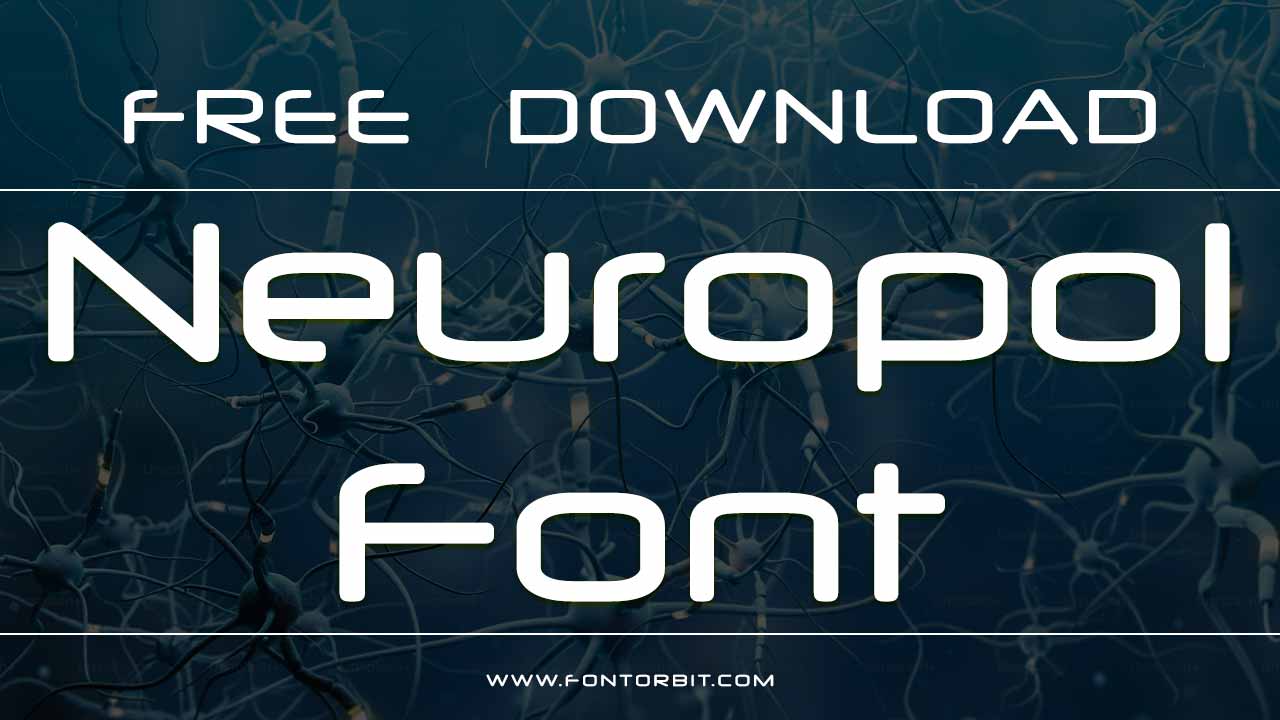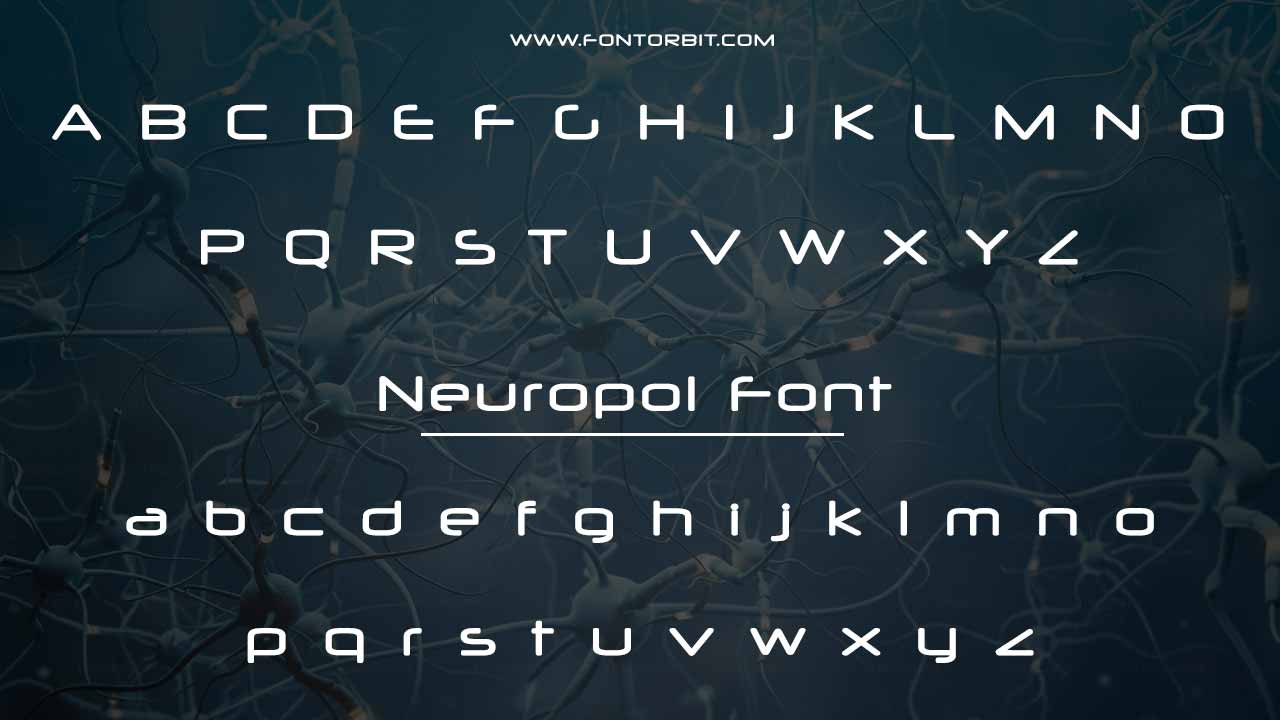
Neuropol Font, created by Typodermic Fonts, is a futuristic and dynamic typeface designed for high-tech and sci-fi aesthetics. Originating in 1996, this wide, starkly futuristic typeface takes inspiration from earlier techno fonts like Microgramma and Eurostile. It features superelliptical strokes and truncated horizontal strokes, making it a favourite for digital and sci-fi designs.
Neuropol Font Family & Variants
Neuropol Font has expanded into several related font families, including:
- Neuropol (Original 1996 version)
- Neuropol X (Redesigned version with enhancements)
- Neuropol Medium (A balanced weight variant)
Where Neuropol Font Is Used
Neuropol is widely used in futuristic and digital-themed designs. Its sleek, modern look makes it suitable for:
- Game Graphics – Sci-fi UI elements and interfaces
- Posters & Advertisements – Tech and futuristic promotions
- Logos & Branding – Ideal for high-tech and gaming industries
- Ebooks & Web Graphics – Digital typography for creative content
Final Thoughts
Neuropol Font is a go-to choice for modern, sci-fi, and tech designs. Whether you’re working on logos, game graphics, posters, or web projects, this futuristic font will help you make a bold statement. With its detailed character set and special characters, Neuropol remains a top choice among popular fonts for digital designers.
1.How Does Neuropol X Differ From The Original Neuropol Font?
Neuropol X is an improved version of the original 1996 Neuropol. It features heavier accents, improved kerning, OpenType stylistic alternates, higher dots on characters like ‘i’ and ‘j’, and additional detail. It also provides more special characters and better readability, making it one of the most refined neuropil-related font families.
3.Does Neuropol Font Support Multiple Languages?
Yes! Neuropol has a broad character map, making it suitable for various foreign fonts and western fonts. It includes special characters and supports multiple alphabets, ensuring it works seamlessly across different languages.
4. What Font Type Is Neuropol, And What Are Some Similar Fonts?
Neuropol is a sans-serif font with a futuristic, modern design. It is often compared to gothic, slab serif, decorative, and script fonts. Some similar fonts include Orbitron, Microgramma, Exo 2, Bank Gothic, and Handel Gothic.
5. Where Is Neuropol Font Most Commonly Used?
Neuropol is a go-to choice for game graphics, posters, web graphics, logos, and ebook typography. Its modern font style also makes it a great option for branding, advertisements, and UI/UX designs.
6. What Are Some Notable Neuropol-Related Font Families?
The most well-known neuropil-related font families include:
- Neuropol Medium – A slightly heavier variant
- Neuropol X – An advanced version with refined characters and OpenType stylistic alternates
- Original Neuropol Font – The classic 1996 version loved for its typewriter font aesthetic and futuristic font design